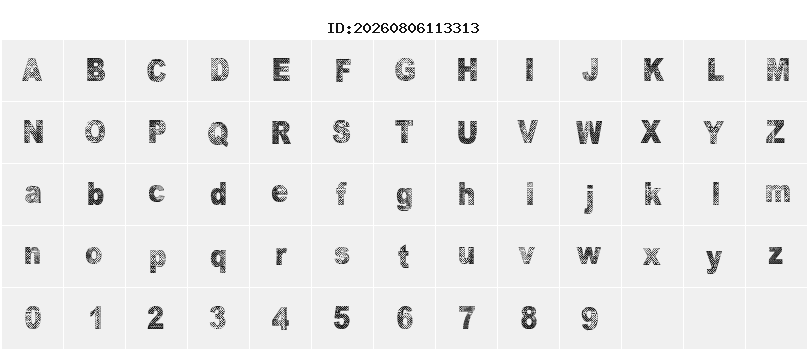
• Font Name: Oranssi hohde
• Designer: junkohanhero
About Oranssi hohde.ttf
Oranssi hohde.ttf is a modern, elegant sans-serif font designed for ultimate readability and visual harmony. Perfect for branding, headlines, web design, and print materials.